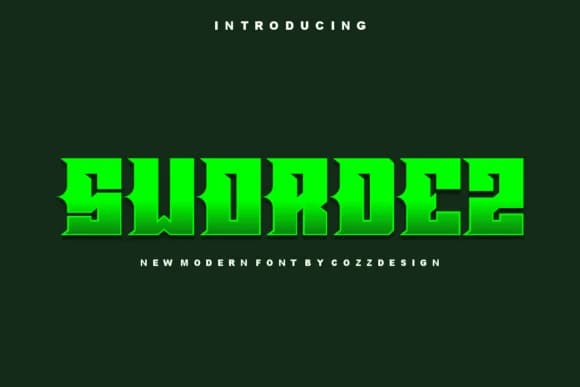
Swordez by cozzdesign derives its power from substantial slab serifs and assertive letterforms constructed for immediate visual impact. The typeface pairs geometric precision with bold weight, creating a presence that feels both contemporary and commanding. Angular cuts and squared-off terminals give it a distinctive edge across tech and sports branding alike. Every letterform carries weight and intention.
You'll see this font shine in athletic branding, esports tournament graphics, and sports team logos where visual force matters most. Streetwear labels and band merchandise designs benefit from its uncompromising personality and structural clarity. Tech startup pitch decks and gaming platform branding both gain credibility from its forward momentum, while fitness studio signage, gaming cafe logos, and boutique sports apparel packaging respond well to its assured authority. The weight and structure hold their own at any scale, whether printed on a business card, displayed on a banner, or blown up on a billboard.
Swordez suits designers and brands building modern work that doesn't apologize for taking up space. It's designed for anyone tired of playing it safe with their type choices, from freelance portfolio builders to small businesses that need genuine personality with real backbone. Head to Creative Fabrica, grab it, and put its uncompromising boldness to work on your next project.
- Sturdy, Confident, Type
Swordez Font is a slab serif font that shines as a display or heading face. Pair it with a clean sans-serif or serif font for body text β the contrast creates a clear hierarchy while the two styles stay balanced and easy to read.